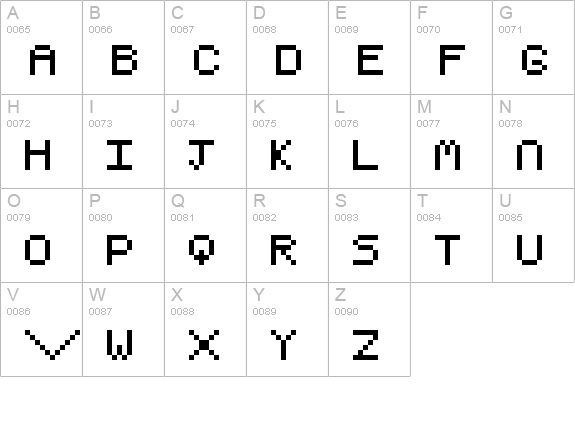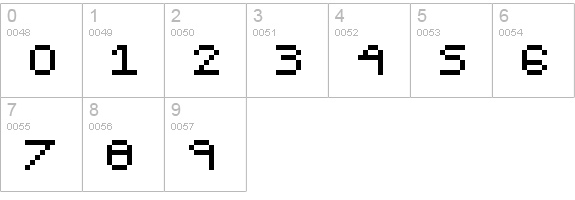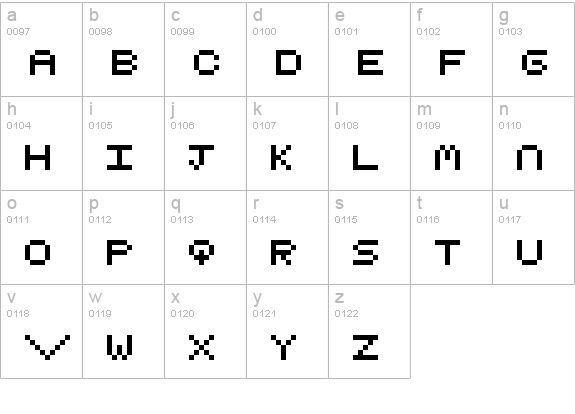
Pixel I Regular is the standard, neutral variant in the Pixel typeface family \xE2\x80\x94 well suited to general body text, paragraphs, and standard typographic work.
Pixel I Regular is a meticulously designed font that embodies the essence of retro computer screens. Its square and pixelated letters instantly transport you back to the era of 8-bit video games and early computer graphics. This font exudes a sense of nostalgia and authenticity, making it perfect for any project that aims to capture the charm of the past. With its clean lines and precise spacing, Pixel I Regular is incredibly legible, ensuring that your message is conveyed with clarity. The carefully crafted pixels give each letter a distinct character, creating a visually striking appearance that is sure to grab attention. One of the best parts about Pixel I Regular is that it is freely available to download at FontsMarket.com. This means that you can use this font in your personal and commercial projects without any restrictions. Whether you are designing a website, creating a logo, or crafting a poster, Pixel I Regular will add a touch of vintage flair to your work. Don't miss out on the opportunity to incorporate this unique and eye-catching font into your designs. Download Pixel I Regular for free at FontsMarket.com and let your creativity soar.